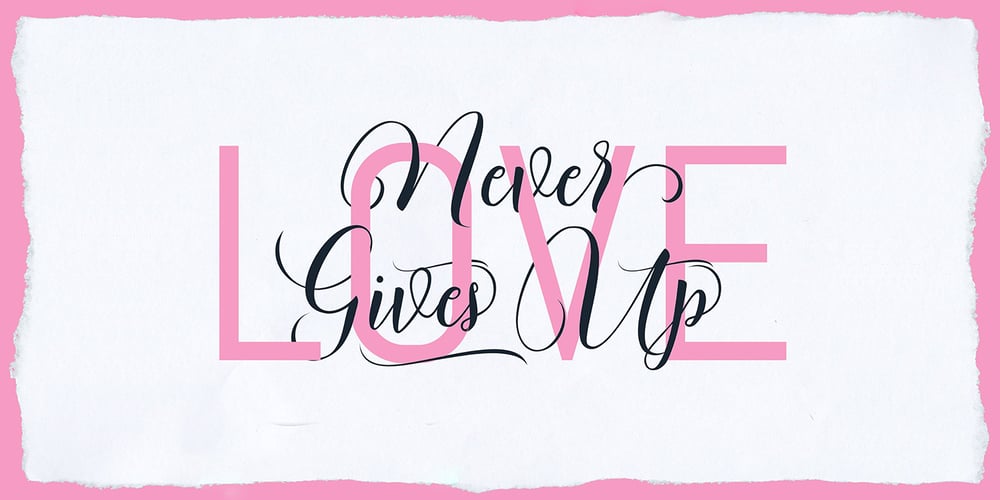
Kimberly Font Family was designed by Rachma and published by BonjourType. Kimberly contains 1 styles and family package options. Kimberly Script is a stylish handwritten calligraphy font, combines from copper slabs to contemporary fonts with dancing baselines, classic and elegant touches. Can be used for various purposes.such as headings, signature, logos, wedding invitation, t-shirt, letterhead, signage, label, news, posters, badges etc. File included: Kimberly Script.otf How do I access the alternate characters? The alternates are accessible by turning on ‘Stylistic Alternates’ and ‘Ligatures’ buttons on in Photoshop Character panel, or via any software with a glyphs panel; e.g. Adobe Illustrator, Photoshop CC, Inkscape. If you have any question, don’t hesitate to contact me by Email: bonjourtype@gmail.com